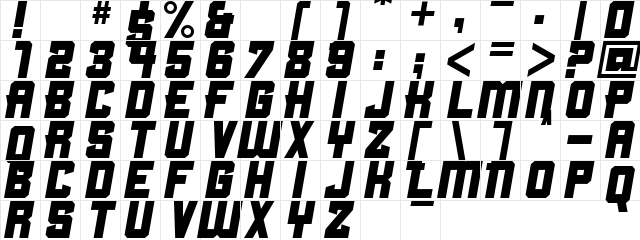
Clean Sports Regular
Design Context for Clean Sports Typeface
Clean Sports brings high-energy athletic personality to the page — its confident, muscular forms are built for impact.
Built for sports team identities, athletic apparel, event posters, and high-energy promotional material.
Pro Tip: Clean Sports thrives on contrast — try it large, bold, and tight against a clean background for maximum visual impact.